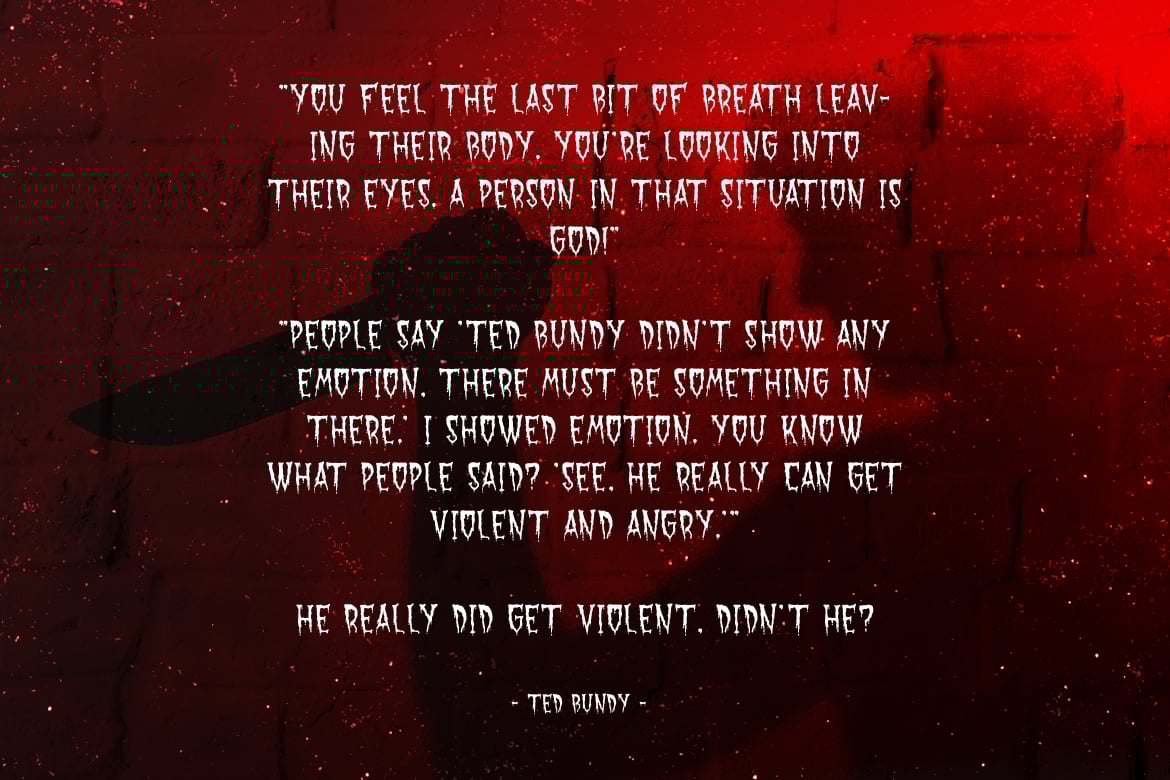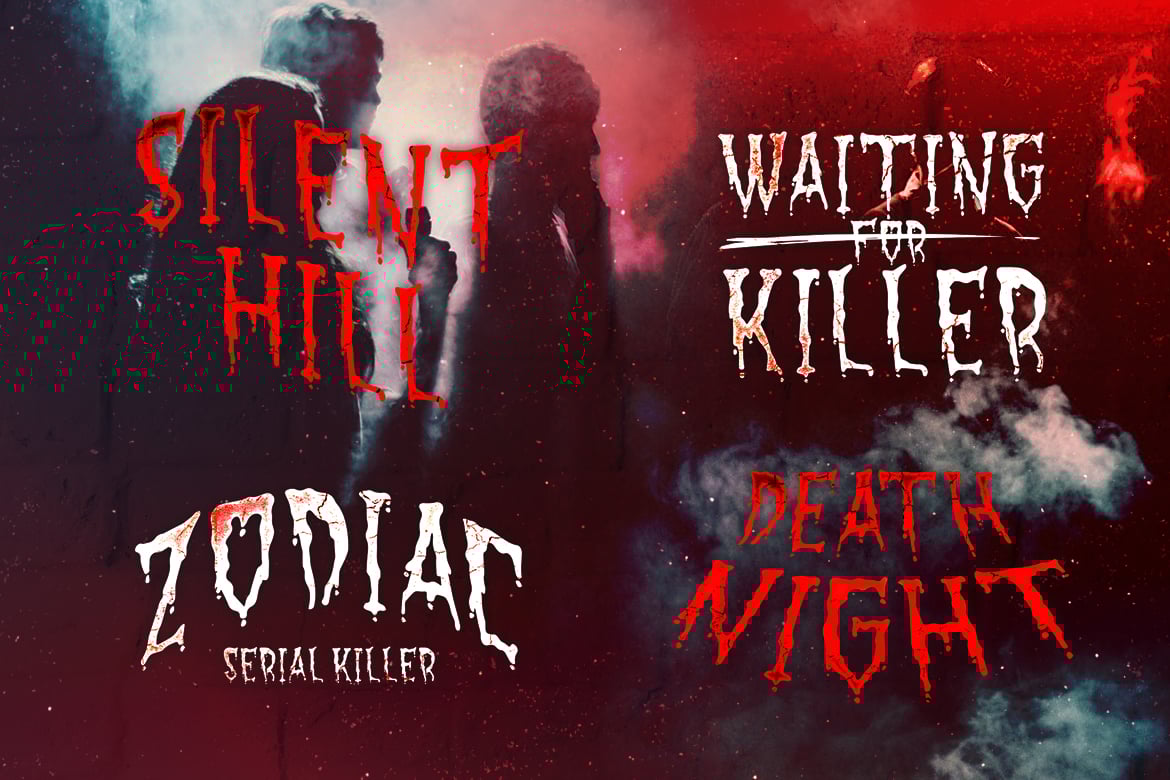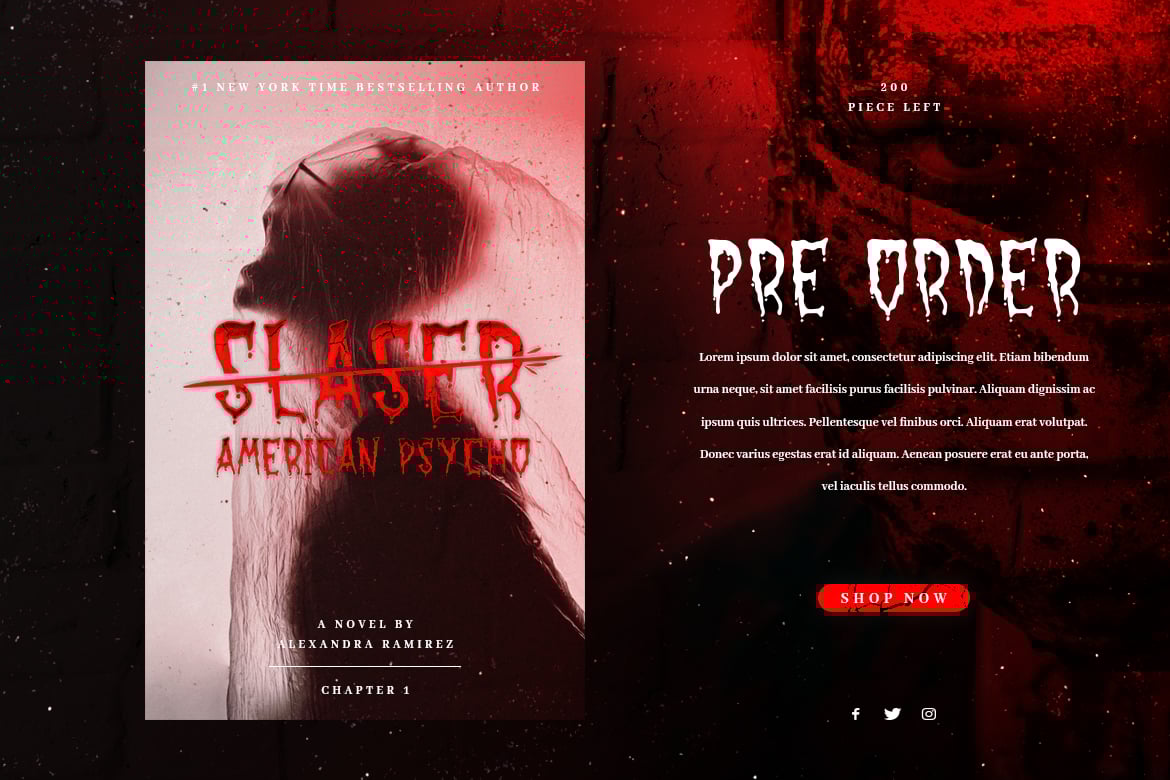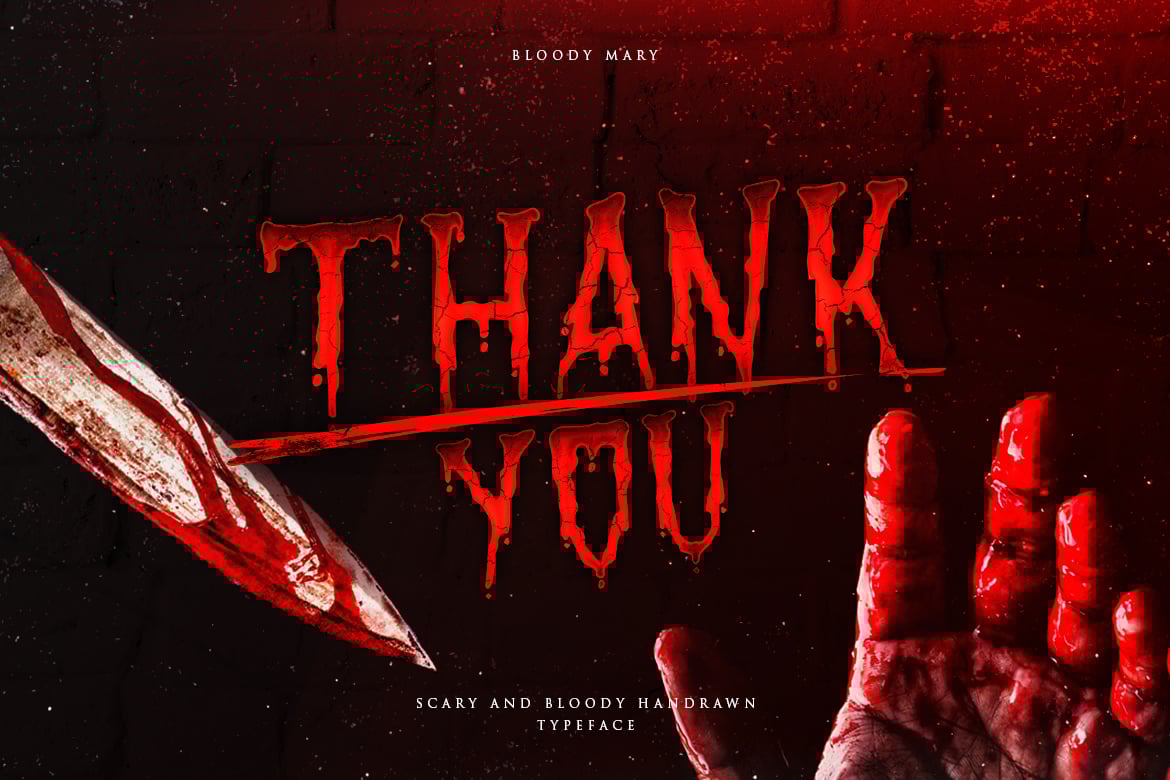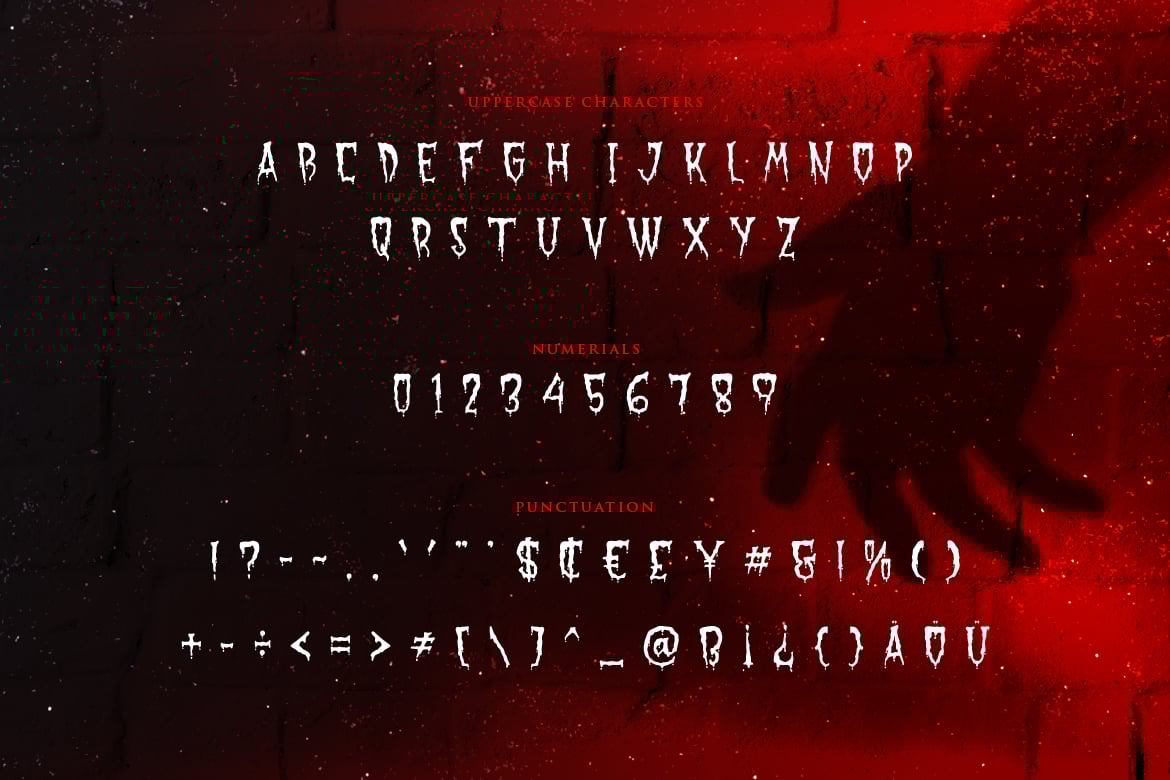
Bloody Mary – Bloody Thriller Typeface
Introducing Bloody Mary font. Are you looking for a Horror display font that has a bold thriller feeling in it? We can help! Try to download our Bloody Mary font. The font is suitable to use for many occasion such as halloween, horror movie title, book title, event, clothing, music, thriller quotes, games and many more 🙂